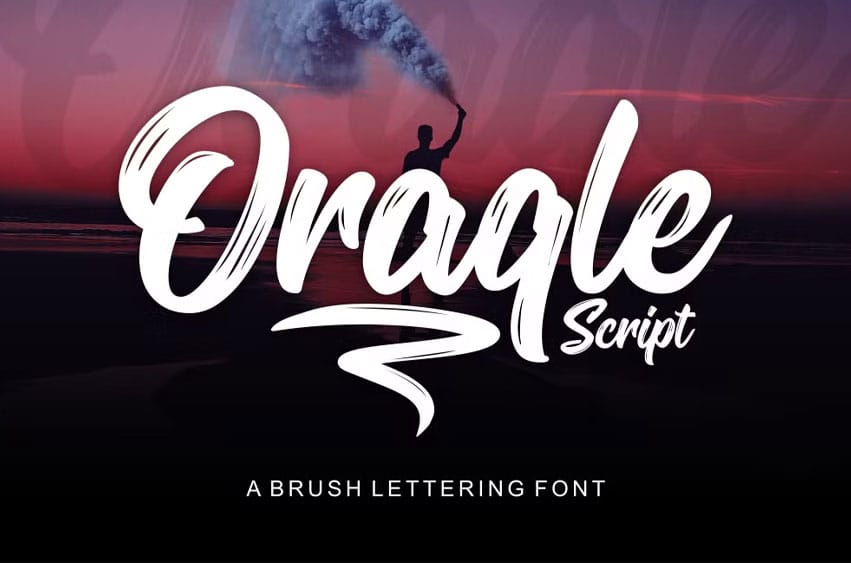
Oraqle Script Font can be described as a type of brush from Union Hands, distinguished by bold strokes and genuine brush texture that stand out in designs. Oraqle also boasts an elegant and clean aesthetic which makes it suitable for logos and printed quotes – as well as titles, labels, T-shirts/apparels as well as wedding invitations/greeting cards/and more!
Oraqle script font comes in various variants with additional washes. This font includes Uppercase and Lowercase letters as well as Numbers, Punctuation and Multilingual characters as well as OpenType features like Ligatures, stylistic Alternative characters and Swashes for your convenience.